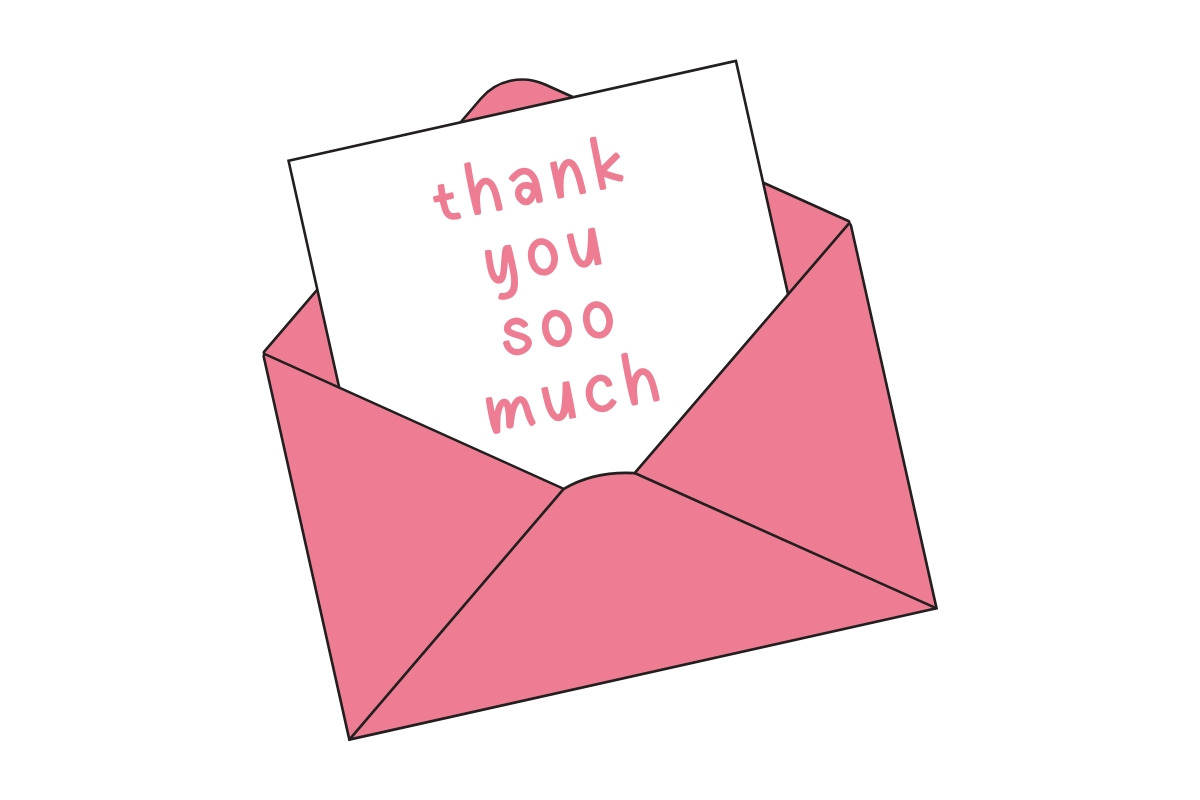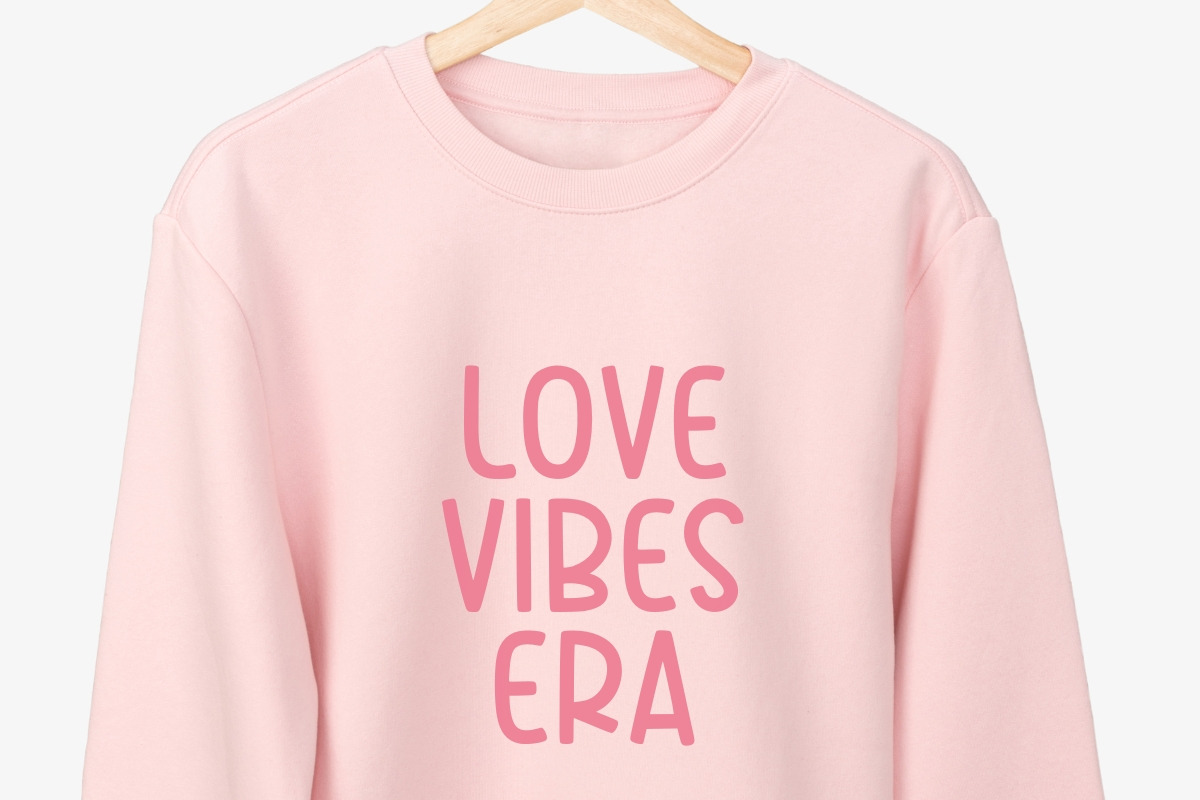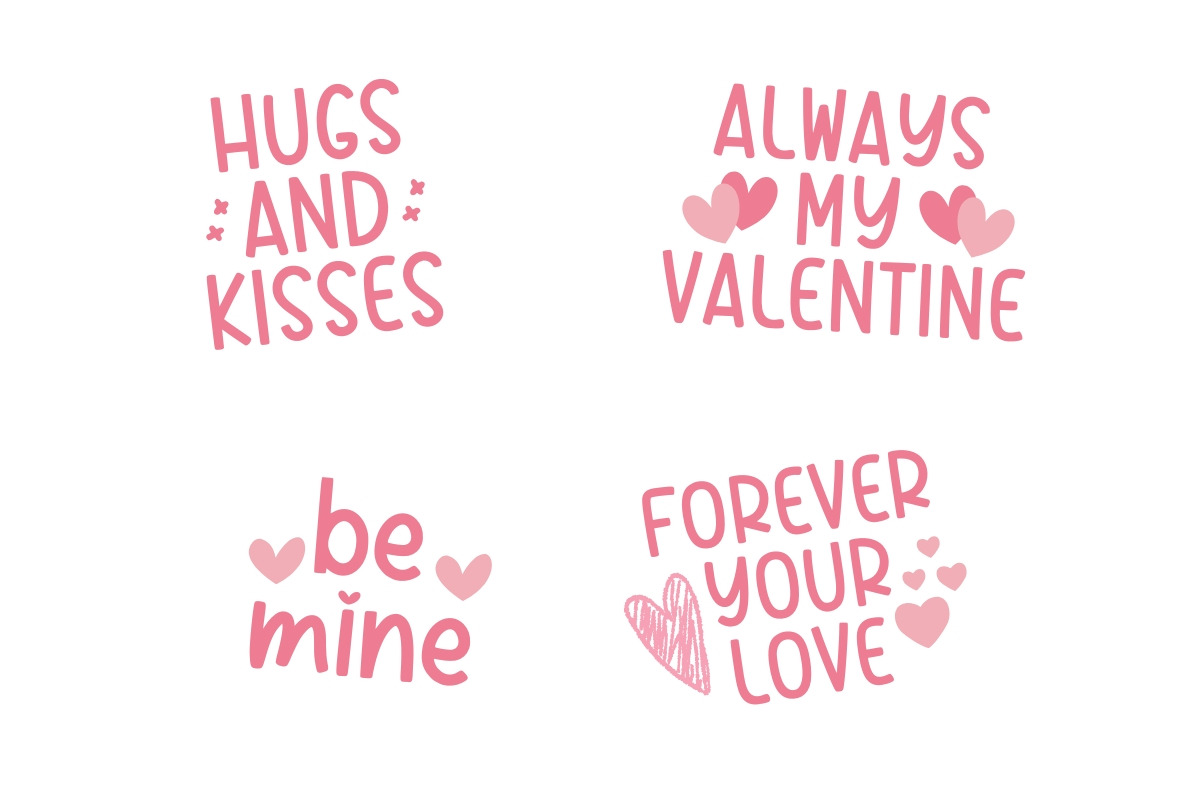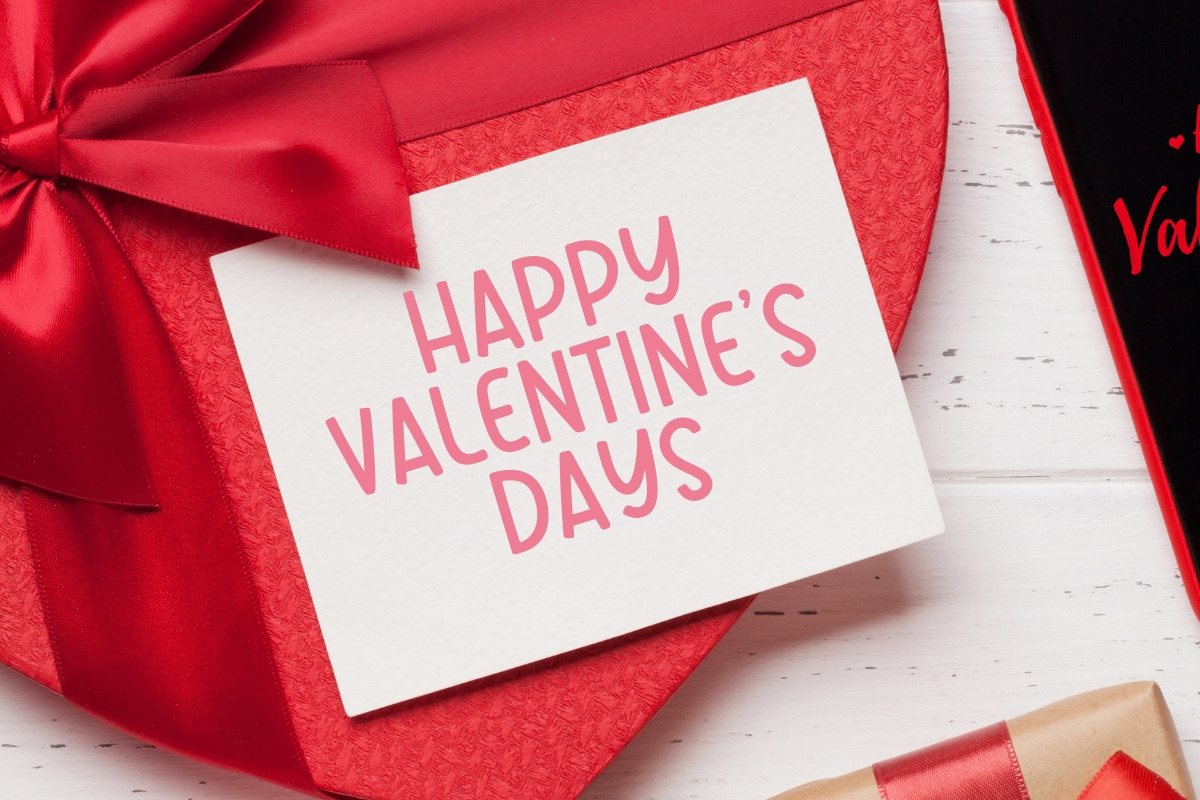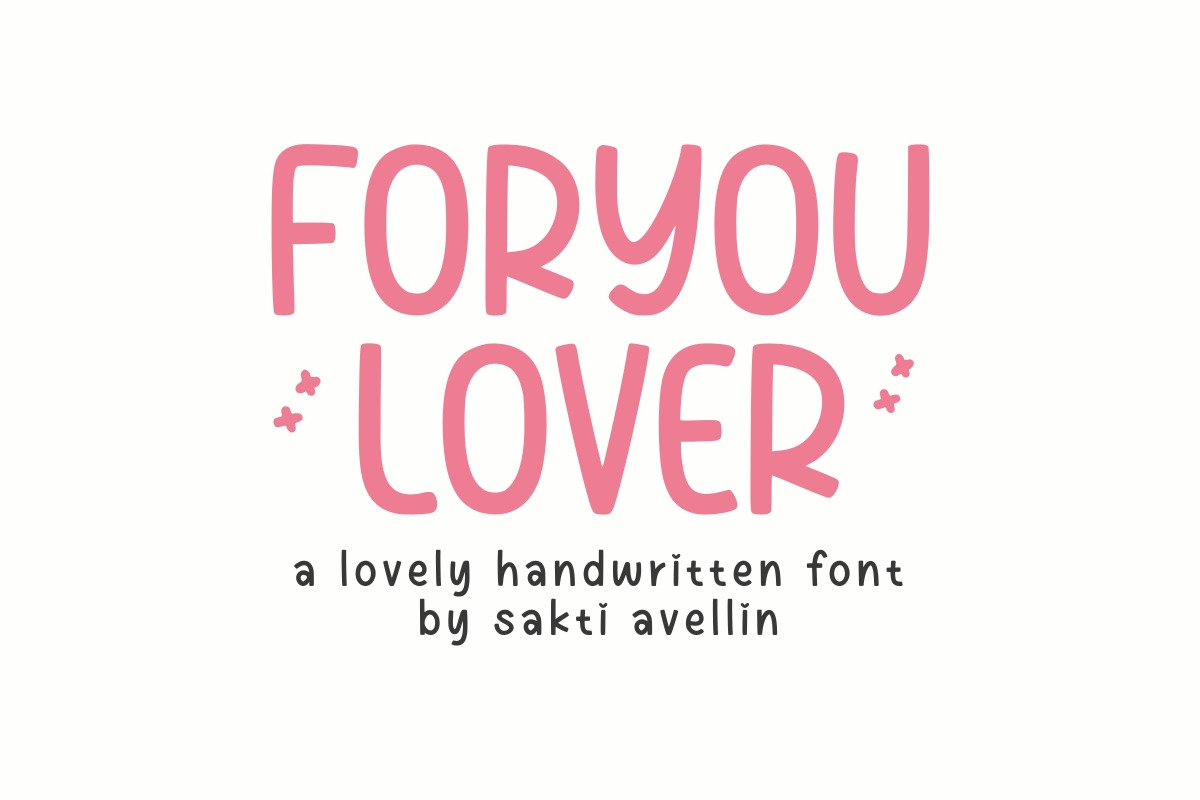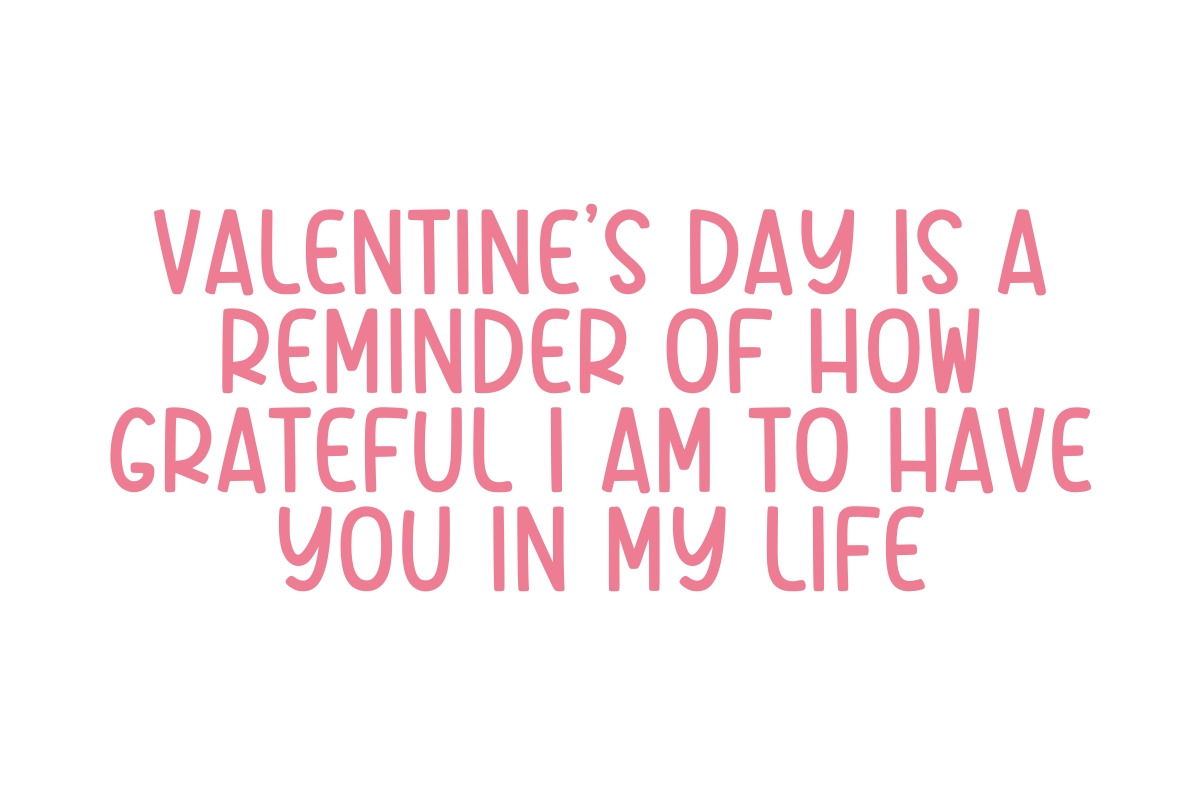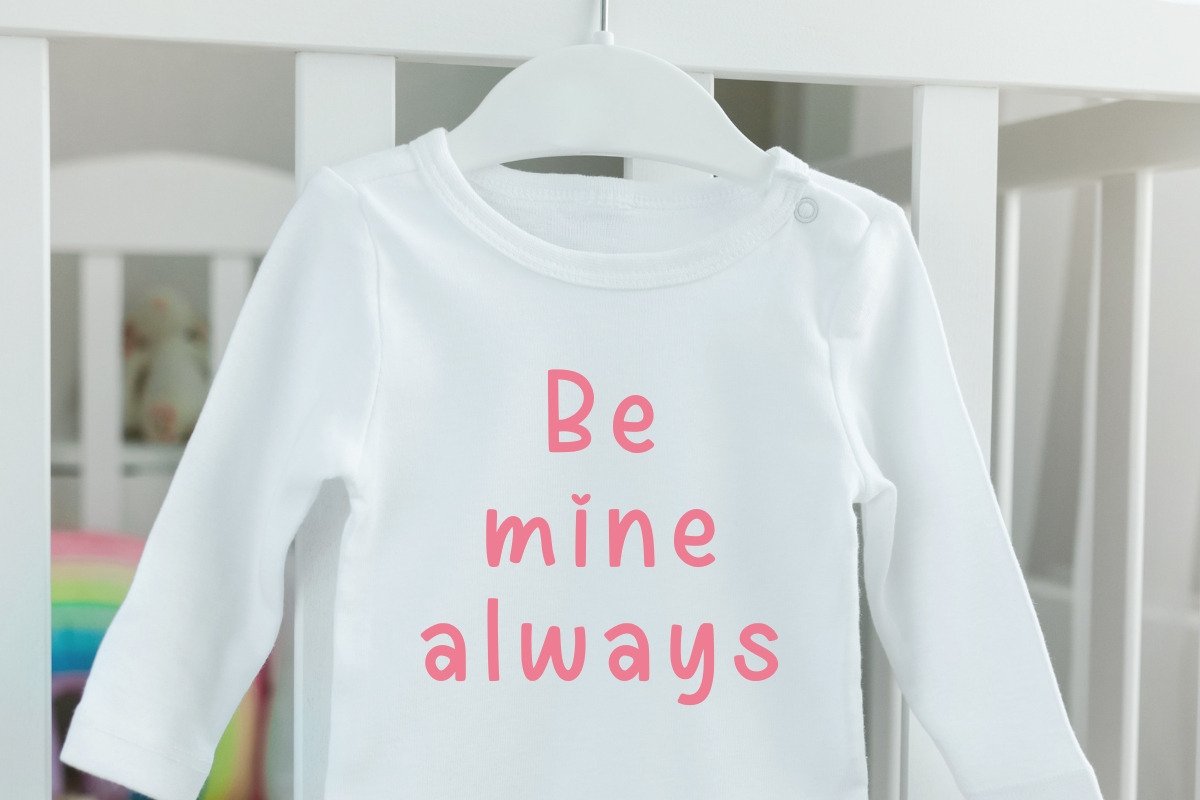
For You Lover - Handwritten Font
For You Lover is a charming, adorable, and genuinely handwritten font perfect for adding a touch of romance and playful personality to your design projects. This lovely font is ideal for wedding invitations, cute kids branding, heartfelt greeting cards, valentine's day graphics, feminine logos, social media posts, and any design needing a sweet, cheerful vibe. Its rounded, casual display typeface is easy to read and instantly appeals to a feminine, modern audience